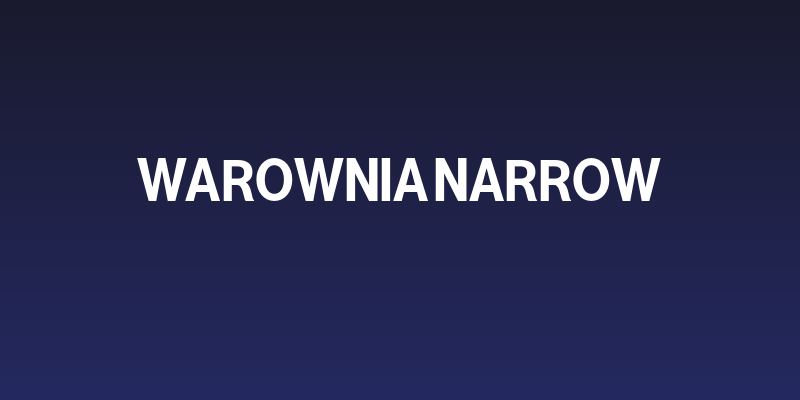
Warownia Narrow Font
Warownia Narrow Description
This typeface features a bold and impactful design, characterized by its narrow and condensed letterforms. The uppercase and lowercase letters are crafted with precision, offering a modern and clean aesthetic. The numbers are equally bold, ensuring readability and consistency across different uses. Special characters are well-defined, maintaining the overall style of the font. The uniformity in stroke width across all characters provides a cohesive look, making it suitable for various applications where clarity and emphasis are required.
| Proposed Projects | Ideal for headlines, posters, branding, and advertising where a strong visual impact is needed. |